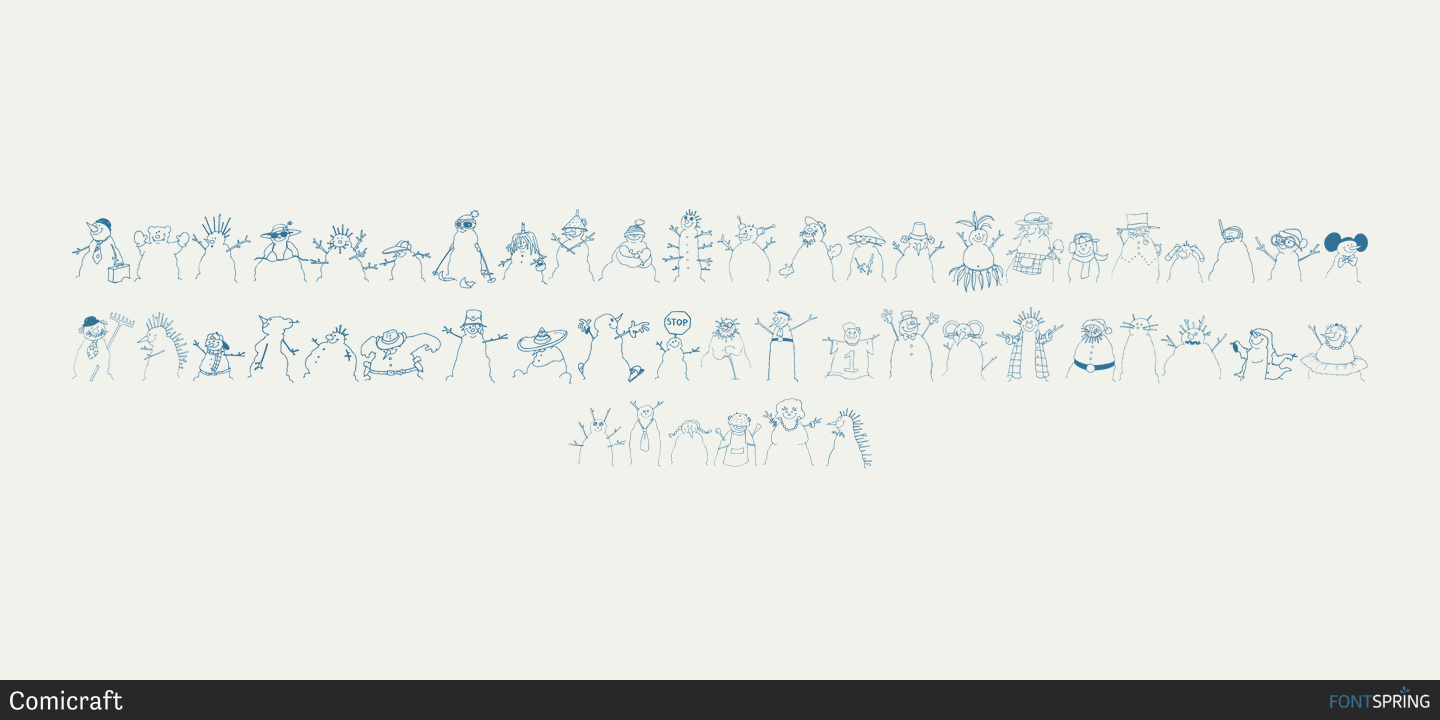
Designed by John Roshell, Snowmany Snowmen is a dingbat font published by Comicraft.
Snow, Snow, Thick, Thick Snow! Sweetly and simply illustrated by the lovely ‘Lilou’, Our Snowmany Snowmen font features fifty (count ‘em) hilarious Snowmen. Perfect for creating Seasonal Greetings for homemade Christmas Cards, decorating your children’s ‘Thank You’ letters—or just print them out for your kids to color while Uncle Frank’s shovelling snow out of the driveway!